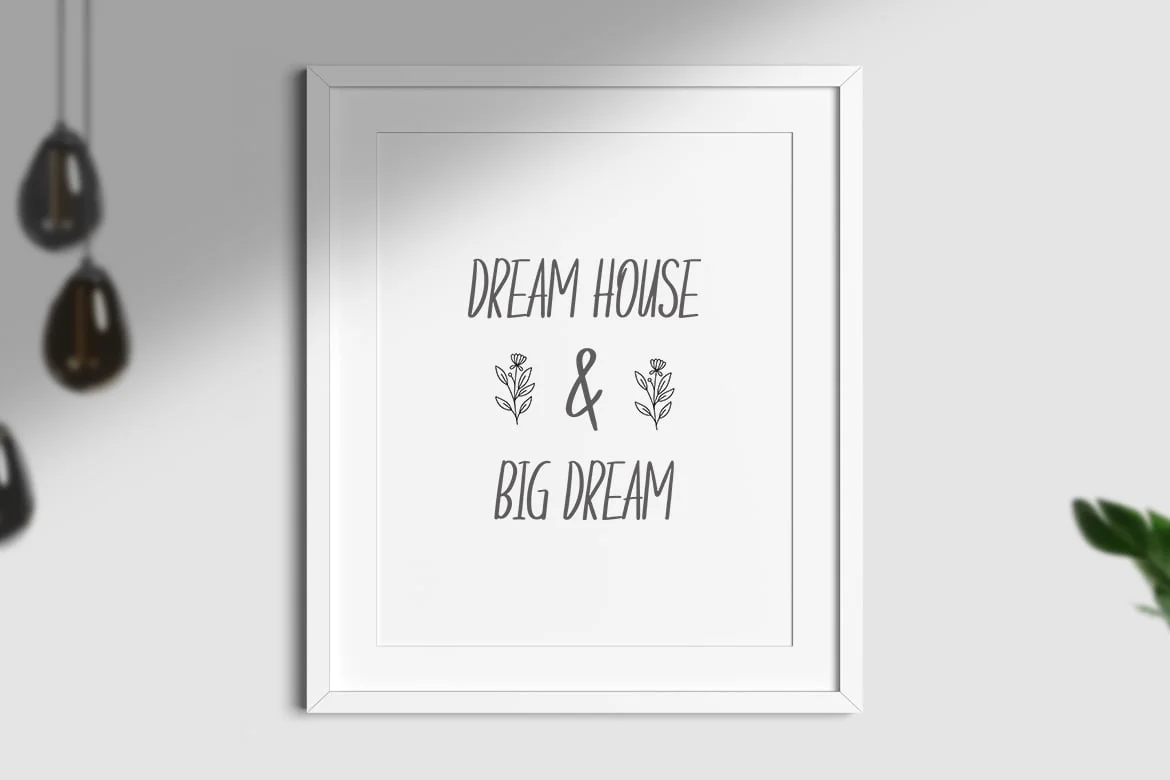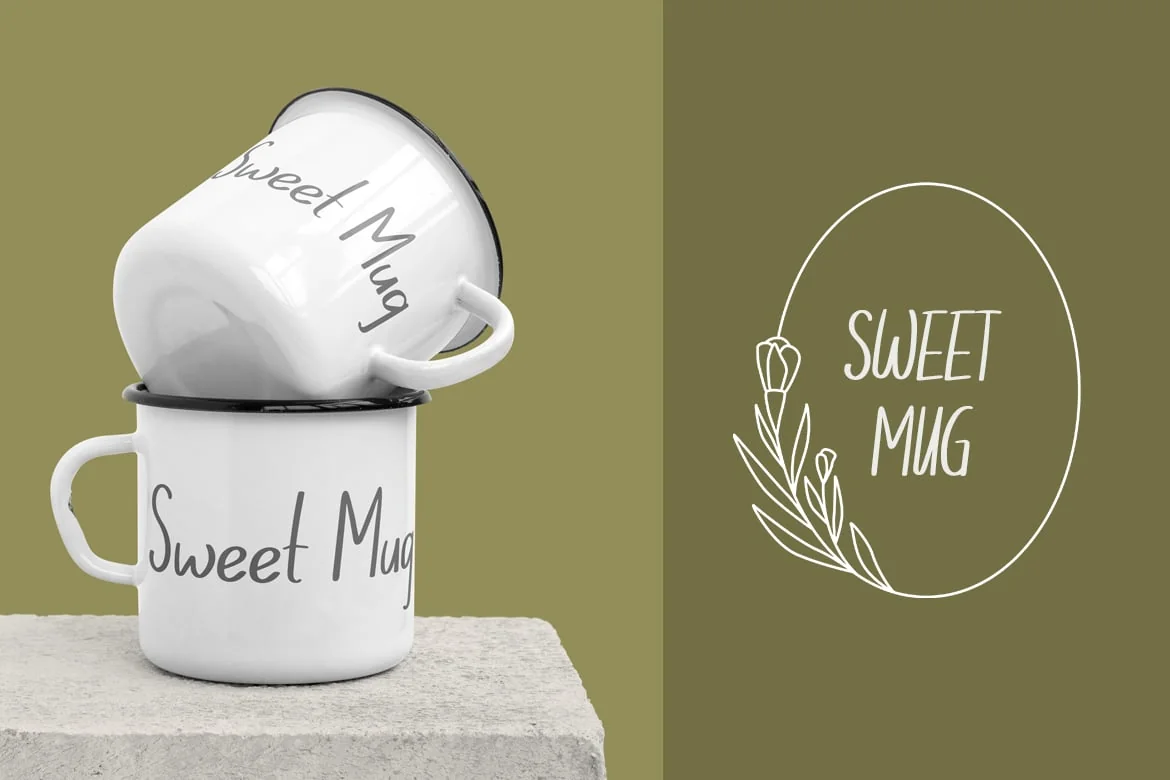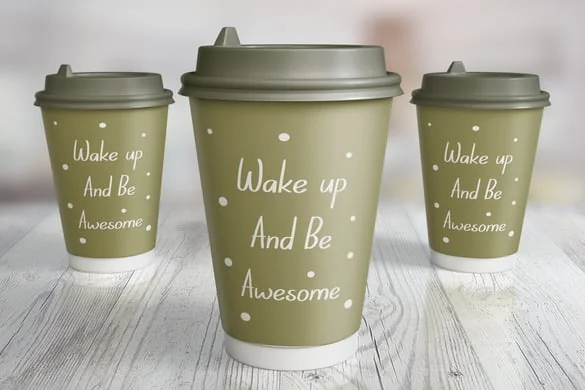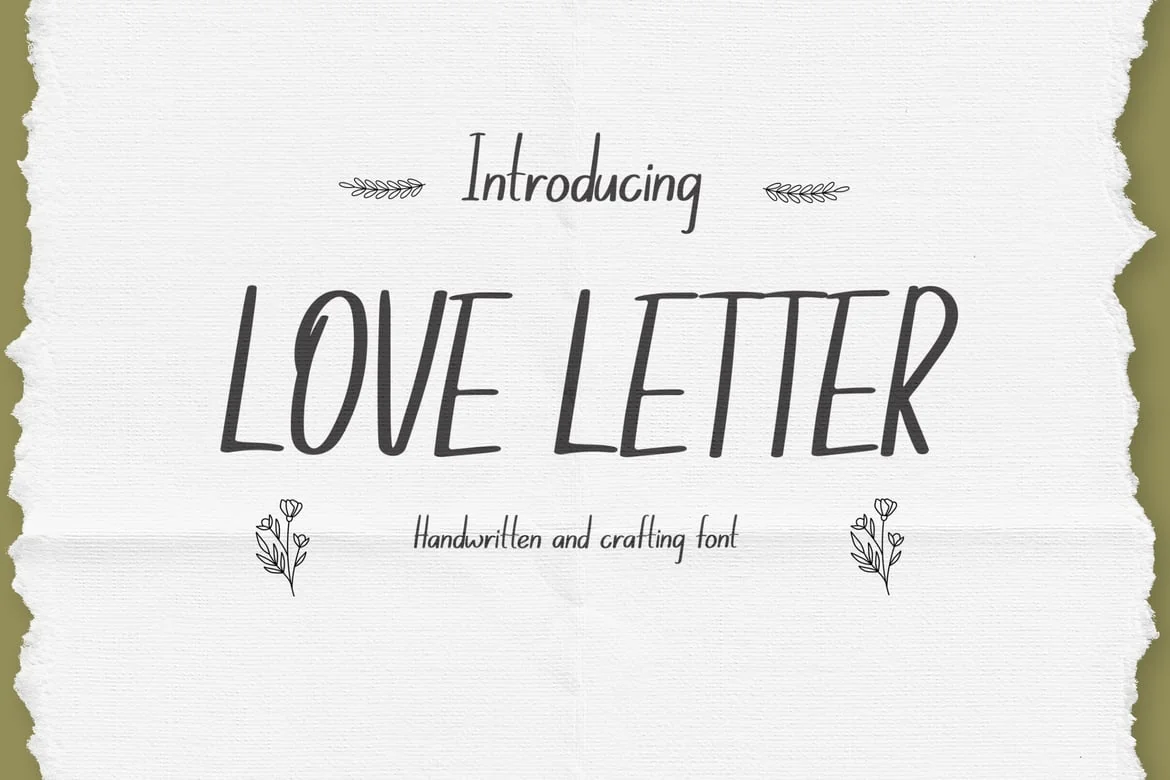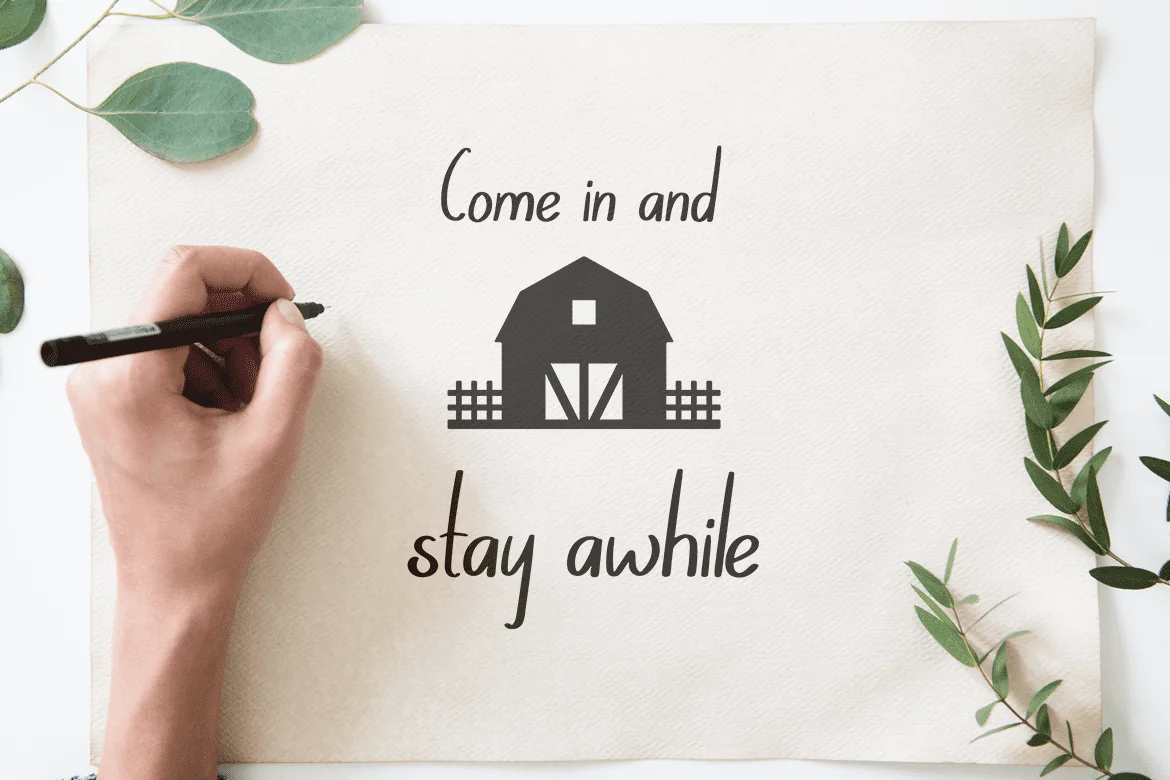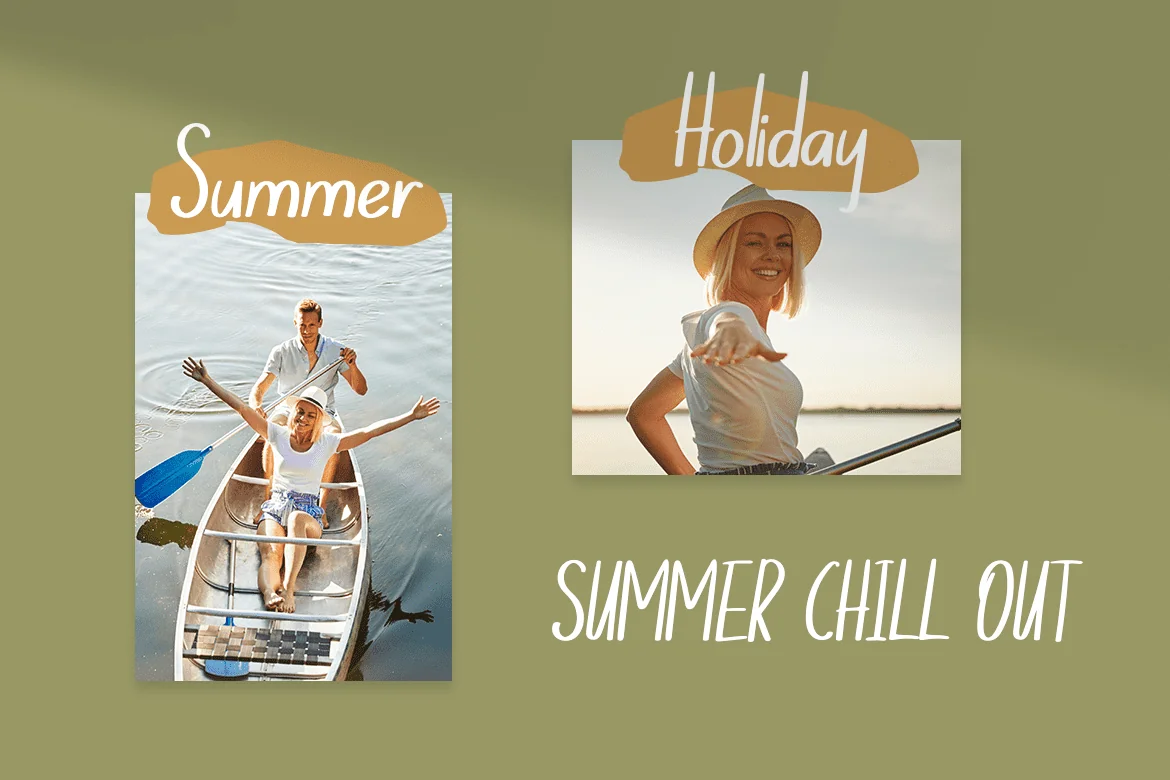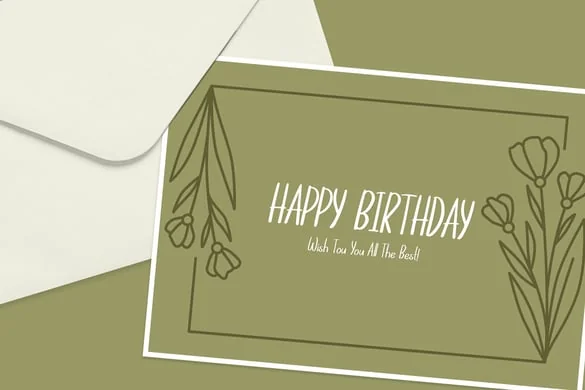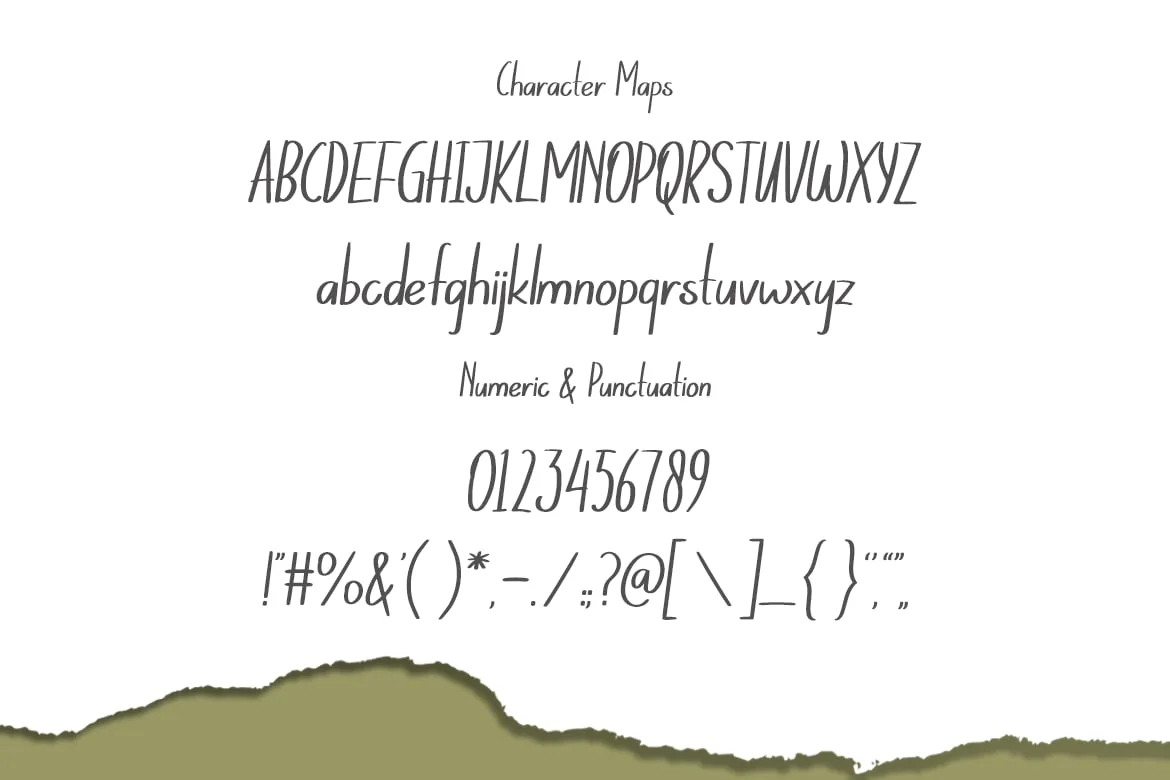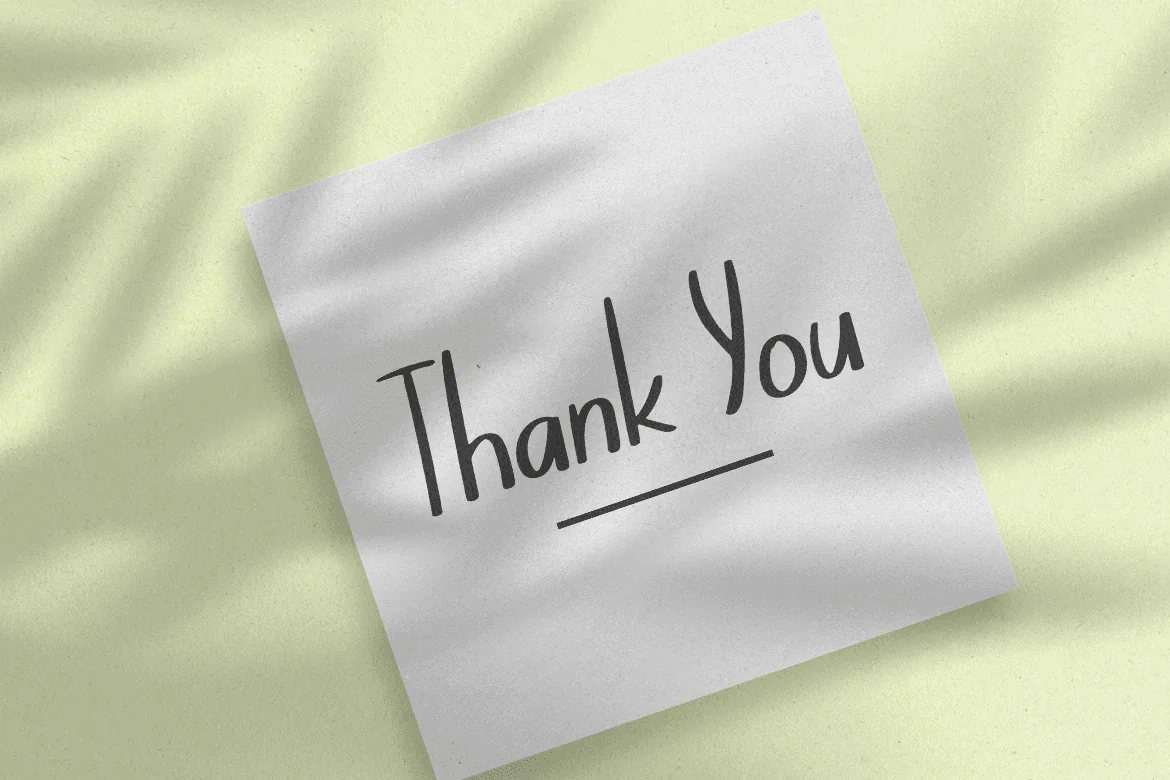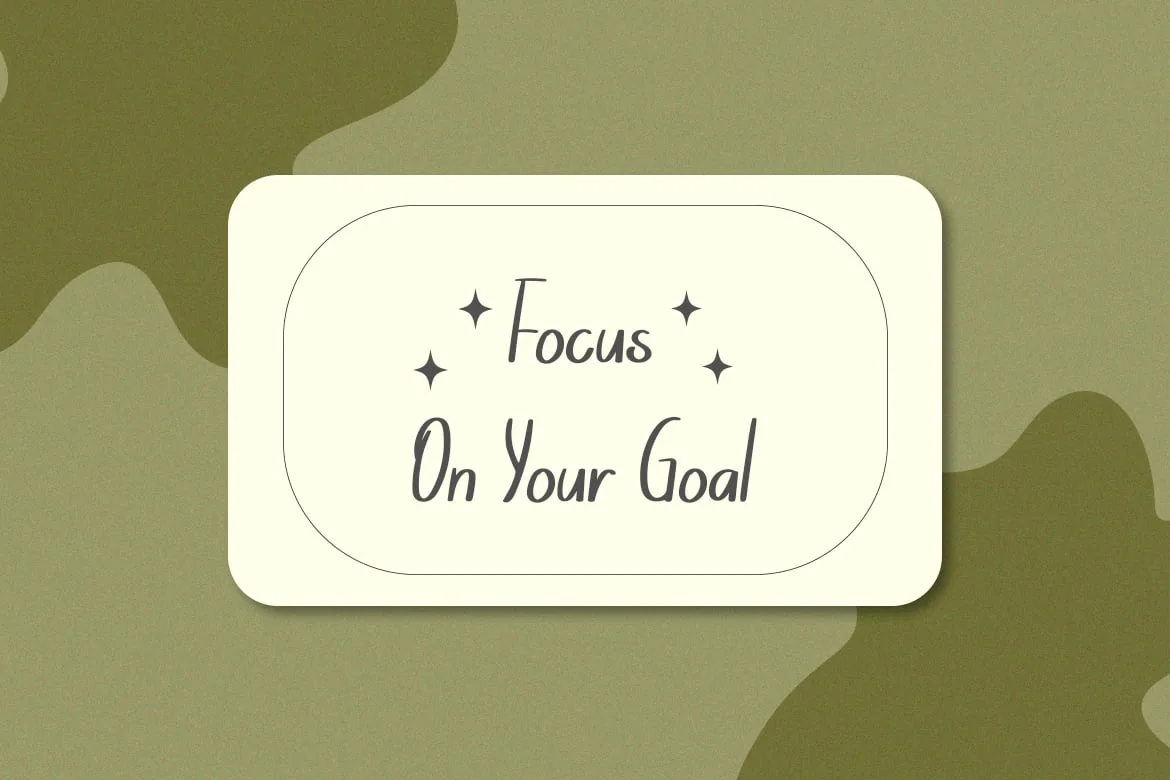
Romantic Font – Love Letter
Love Letter is a charming, handwritten font that spills warmth and personality onto your designs. Inspired by the sweet notes exchanged between loved ones, this playful script adds a touch of whimsy to logos, quotes, invitations, and more.
Whether you’re crafting a heartfelt message for a special occasion or designing a brand with a touch of vintage charm, Love Letter’s flowing script and delicate flourishes will make your words stand out. It’s perfect for adding a personal touch to anything from posters and greeting cards to packaging and social media posts.